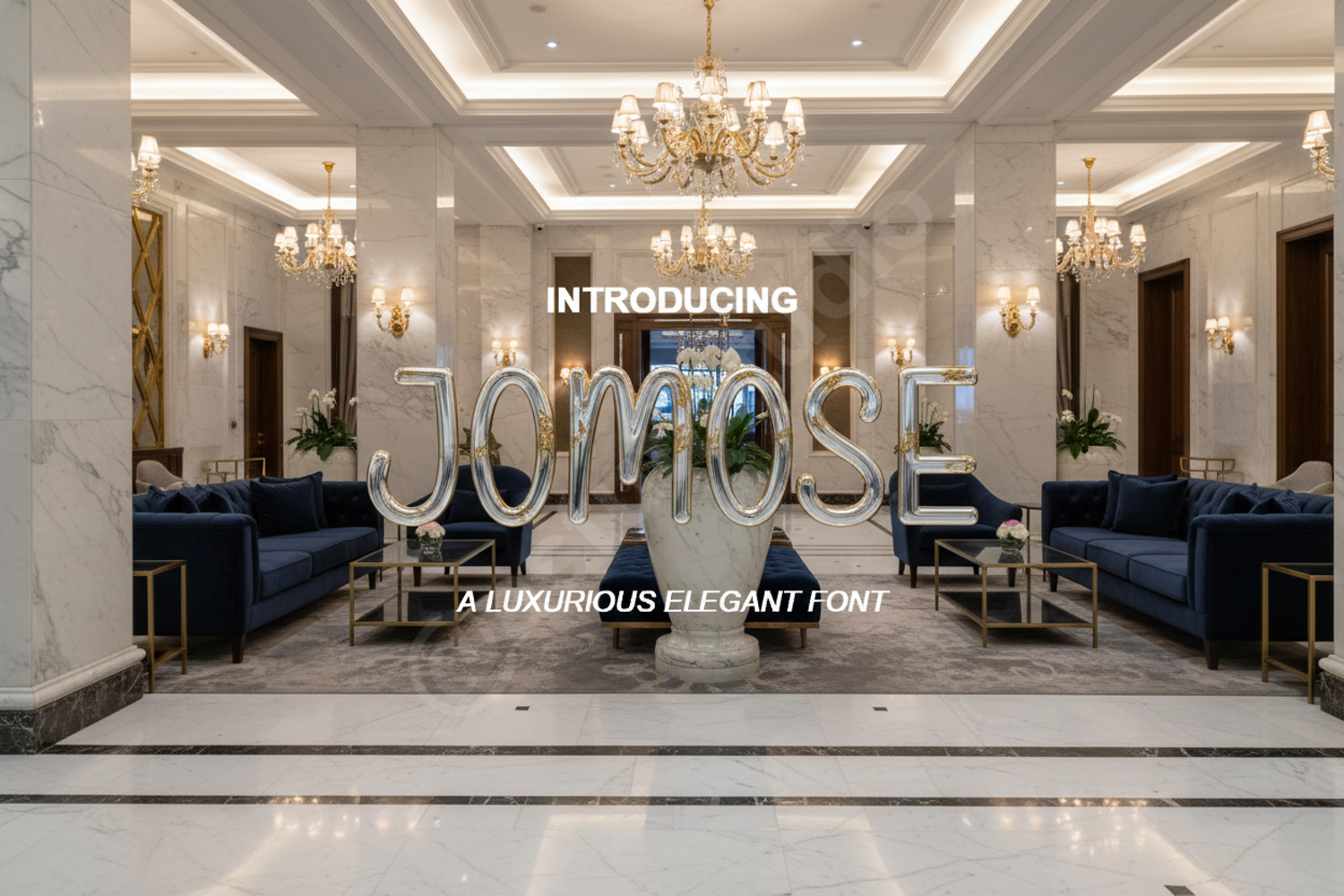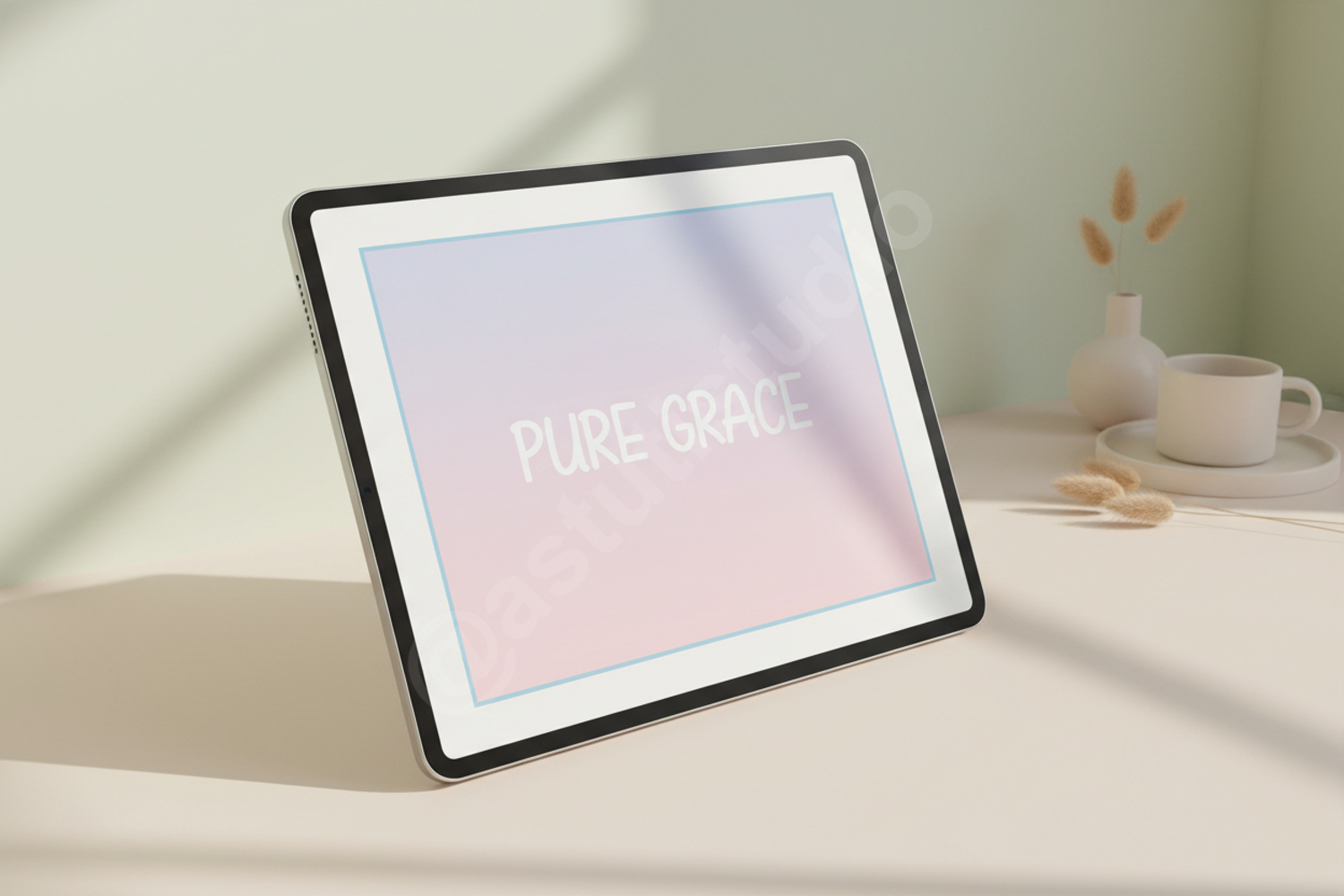
Jomose - Elegant & Sophisticated Modern Serif
Jomose
Jomose is a premium modern serif font that blends timeless elegance with contemporary flair. Designed for high-end projects, this typeface offers a clean and sophisticated aesthetic that commands attention while maintaining perfect readability. Whether you are creating a luxury brand identity or a minimalist editorial layout, Jomose provides the versatility and professional polish your designs deserve.
- High-End Branding and Logo Design
- Editorial Layouts and Magazine Spreads
- Elegant Wedding Invitations and Stationery
- Professional Social Media Graphics
- Luxury Product Packaging
- Modern Website Headers